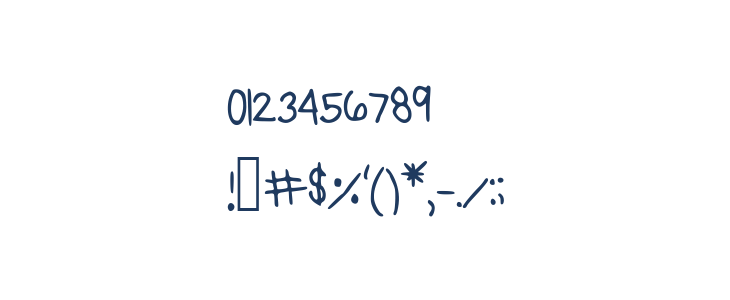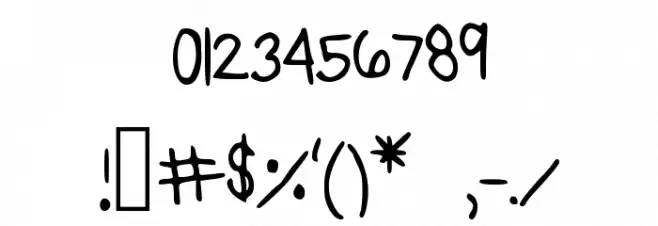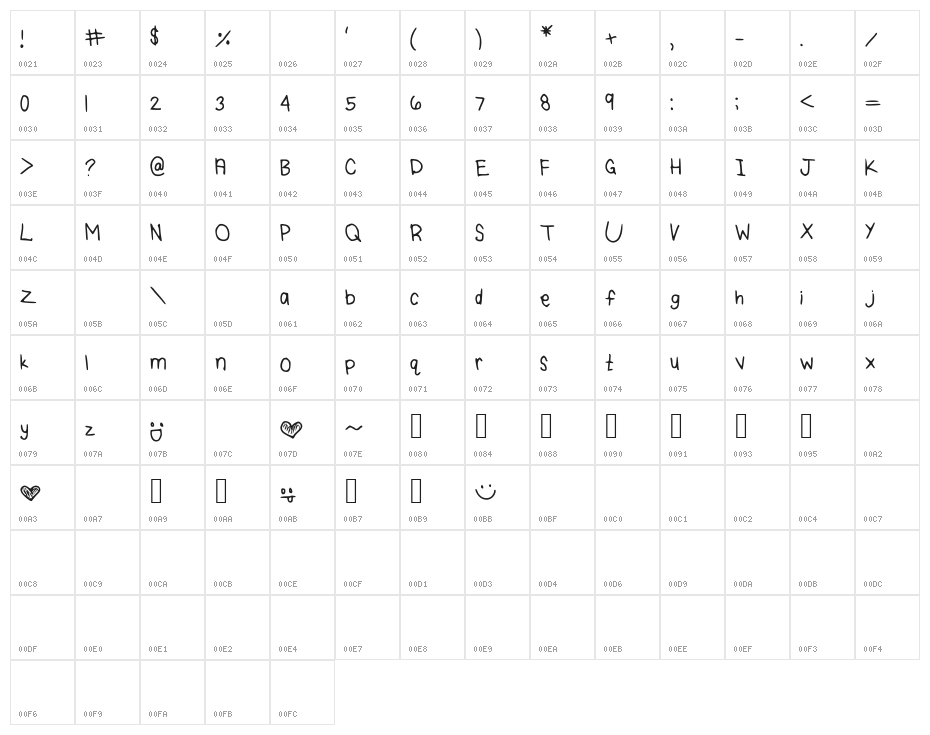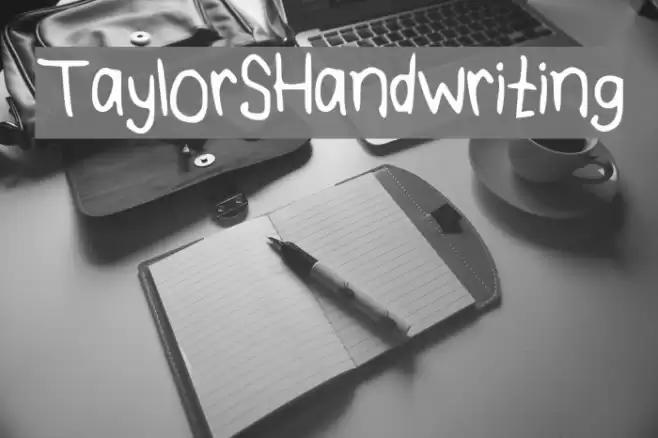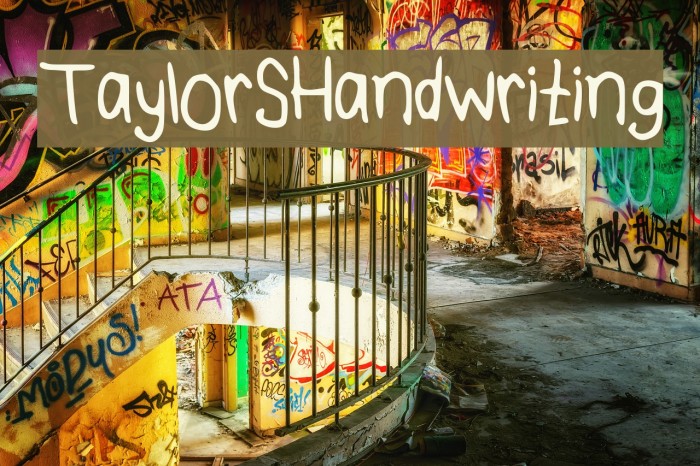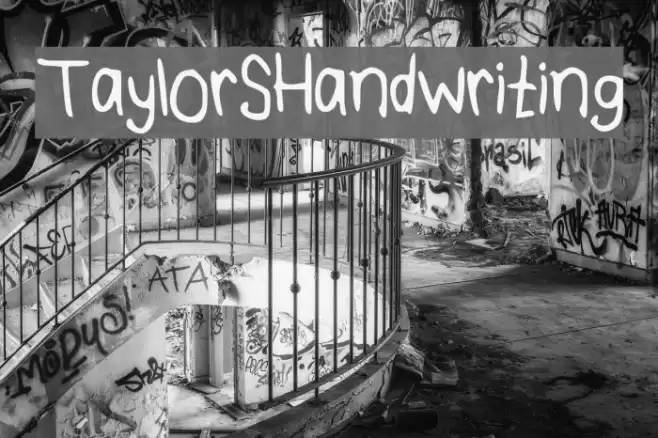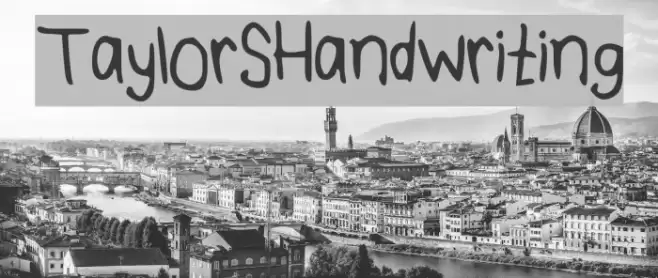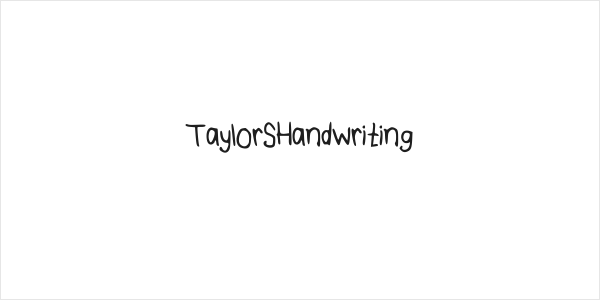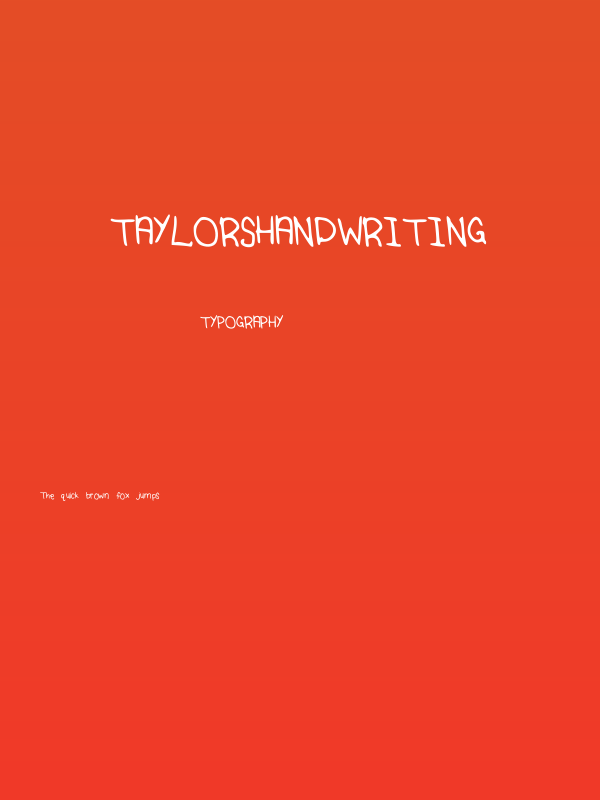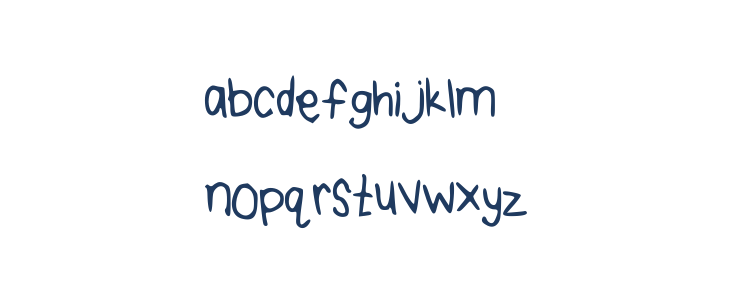
TaylorSHandwriting Font
TaylorSHandwriting Description
This font exudes a casual and playful handwritten style, characterized by its irregular and slightly whimsical letterforms. The strokes are smooth and rounded, giving it a friendly and approachable appearance. Each character maintains a consistent flow, mimicking the natural motion of handwriting. The uppercase and lowercase letters are well-balanced, with a slight tilt that adds to its informal charm. The numerals and special characters are crafted to match the overall aesthetic, ensuring a cohesive look across all text. This font is perfect for projects that require a personal touch or a relaxed vibe.
| Use Case | Headlines, Informal text, Personal projects |
| Proposed Projects | Ideal for greeting cards, invitations, personal blogs, and informal branding. |